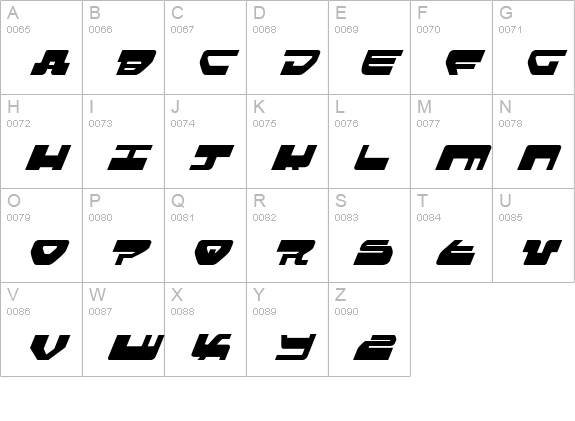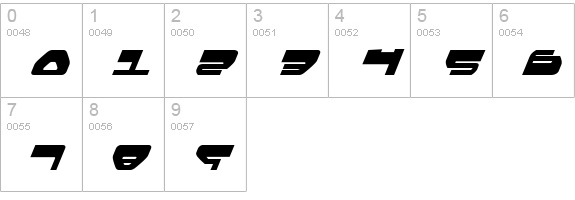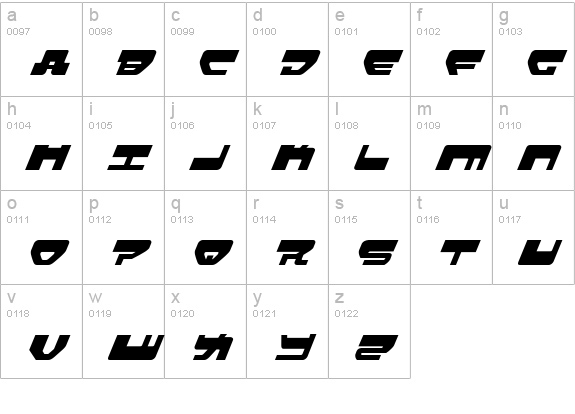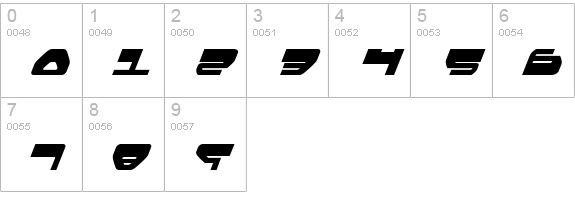
Loveladies Italic is a distinctive, italic variant in the Loveladies typeface family \xE2\x80\x94 well suited to design and typography projects.
Loveladies Italic font is a stunning and elegant typeface that exudes sophistication and charm. Its sleek and flowing design adds a touch of class to any project, making it perfect for invitations, branding, and editorial design. The italic style of the font gives it a unique and dynamic look that is sure to captivate your audience. What makes Loveladies Italic font even more appealing is that it is completely free to download at FontsMarket.com. This means you can enhance your designs with this beautiful font without any cost, making it an excellent choice for both personal and commercial projects. Don't miss out on the opportunity to elevate your designs with Loveladies Italic font - download it for free today!